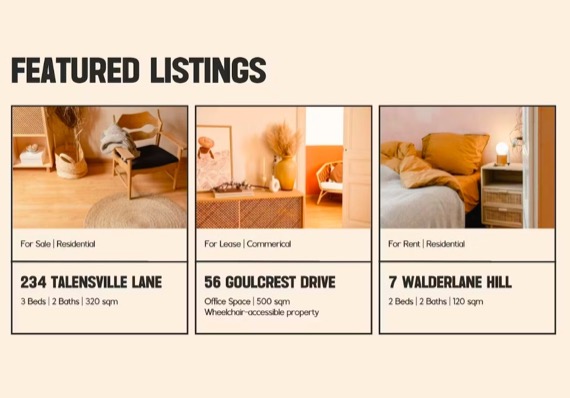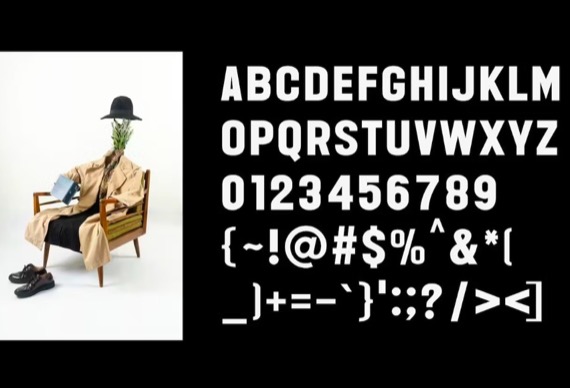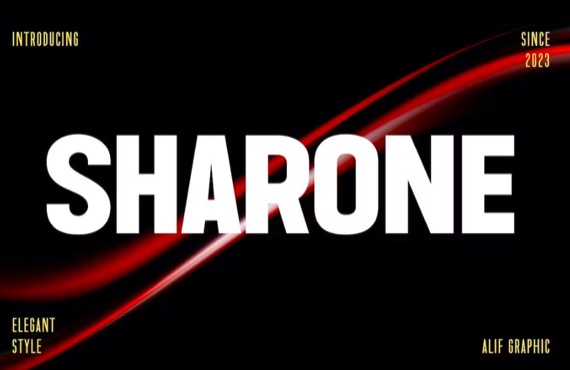
Sharone Font
Sharone is an elegant and beautiful sans serif font that includes series of letters is encapsulated in this typeface. Neat lettering is perfect for writing needs that are modern and pleasing to the eye, there is a Modern impression but still looks Elegant when used for writing. Tidiness in the manufacture of each letter, is our top priority. You can have fun and be creative using this font product we made, because the results will definitely be very satisfying.